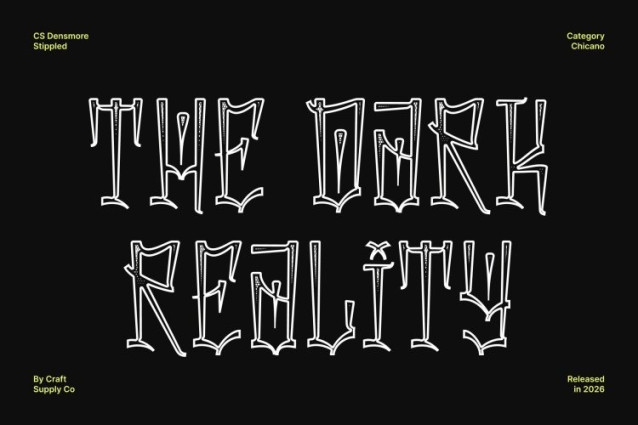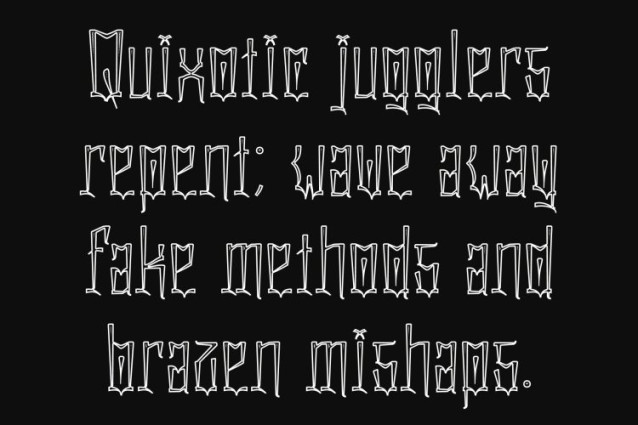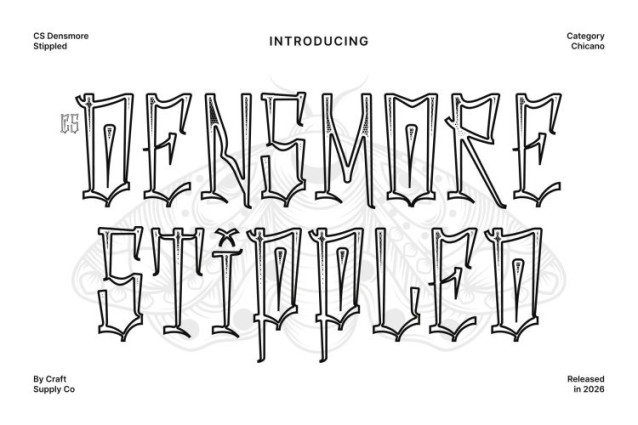
CS Densmore Stippled Font
CS Densmore Stippled Font – This is a expressive Chicano graffiti display font inspired by the vibrant street art and cultural identity of Chicano communities. Its flowing letterforms, dynamic curves, and ornamental shapes capture the spirit of urban calligraphy and mural lettering. Enhanced with a stippled texture, the font gains a subtle dotted surface that adds depth and a handcrafted visual layer, reinforcing its artistic and street-inspired character.
Intricate Letterforms with Fluid Movement
The defining feature of this font lies in its carefully crafted letterforms. Elegant curves and rhythmic strokes create a sense of movement and energy, giving the typography a powerful and expressive voice. The stippled finish enriches these forms with textured detail, adding visual richness while preserving the fluid beauty of the script-like structure.
Decorative Flourishes with Urban Influence
Ornamental flourishes and decorative extensions bring a distinctive personality to the design. These elements reflect the intricate artistry found in Chicano graffiti and tattoo lettering, giving each character a sense of individuality and cultural depth. The added texture further enhances the handcrafted feel of the typography.
Perfect for Tattoos, Streetwear, and Urban Design
This is ideal for tattoo designs, urban branding, streetwear graphics, music posters, and expressive logo work. By blending graffiti-inspired forms with textured stippled detailing, the font delivers a powerful typographic style that celebrates creativity, identity, and cultural expression.